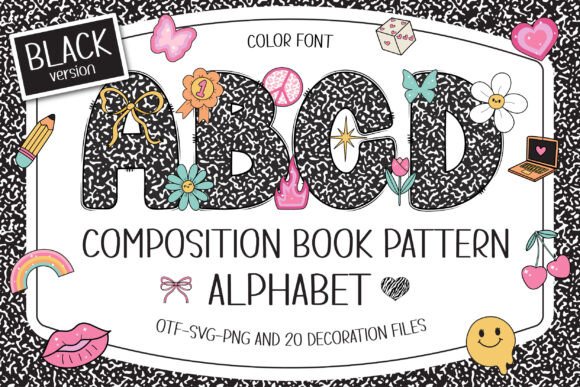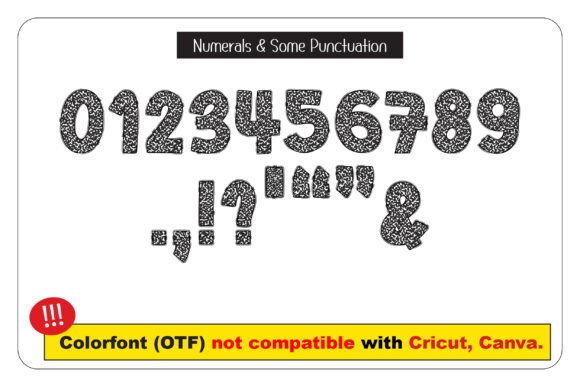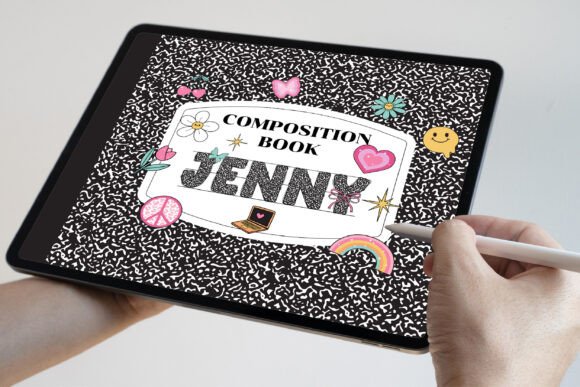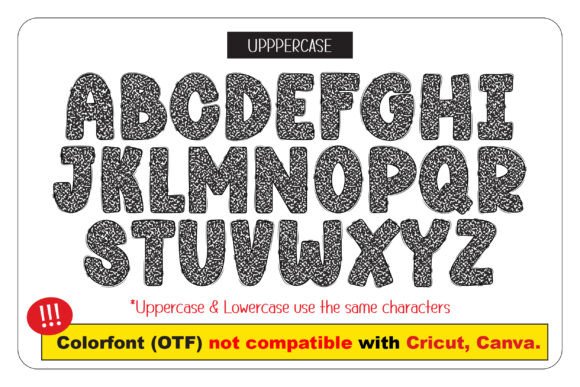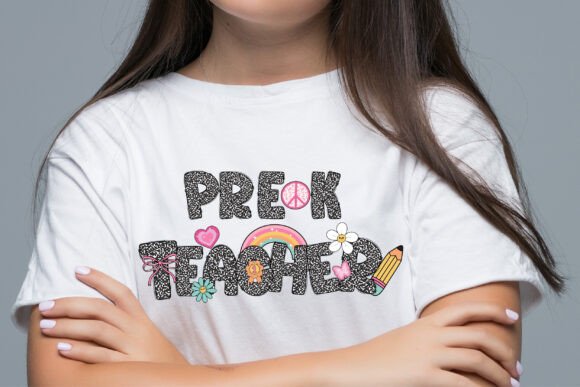
Composition Book Pattern Font
Introducing “Composition Book Pattern” a nostalgic font inspired by the classic black-and-white composition book cover, enhanced with 20 Y2K-style doodle cliparts to decorate each letter. Perfect for scrapbooks, posters, personalized gifts, classroom media, learning tools for students, classroom decorations, DIY craft projects, T-shirt and merch sublimation, personalized names, and more, this font brings a touch of vintage classroom charm to modern projects. “Composition Book Pattern” is ideal for adding an educational yet fun twist to your creative work!